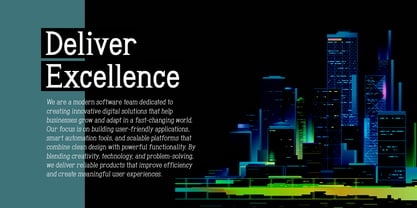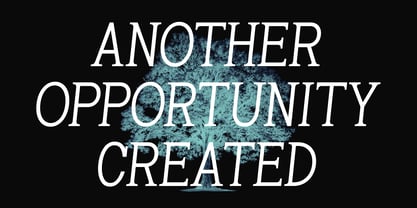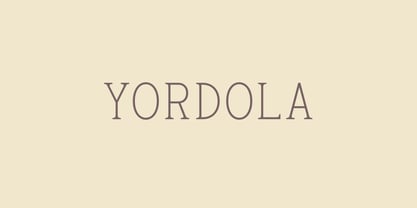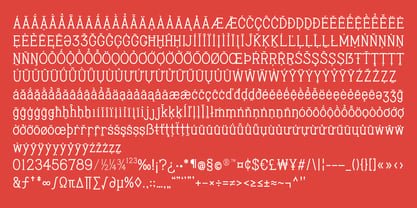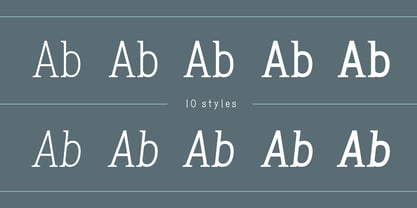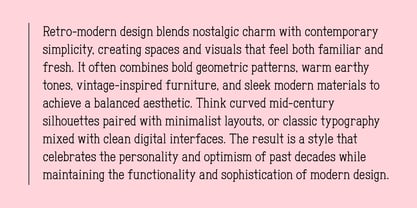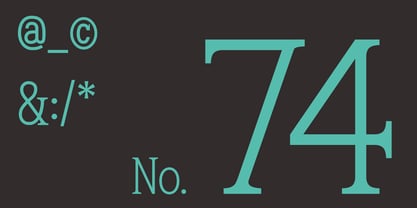
Yordola
by Outerend
The Yordola Font Family was designed by Taka Ikari and published by Outerend. Yordola contains 10 styles and family package options. More about this family
Yordola is a modern serif typeface that blends refined elegance with contemporary versatility. Designed with distinctive, display-inspired serif details, it moves beyond traditional serif conventions while maintaining excellent readability.
Featuring 10 styles across 5 weights and matching italics, Yordola offers a flexible typographic system suitable for a wide range of applications. From branding and editorial design to websites, apps, and UI/UX projects, its balanced character brings sophistication without sacrificing usability.
With its clean structure, distinctive personality, and modern proportions, Yordola delivers a polished presence across both digital and print environments.
Designers: Taka Ikari
Foundry: Outerend